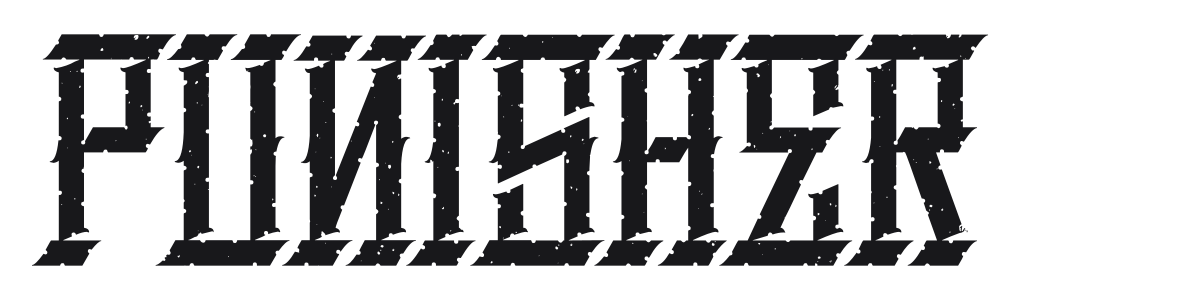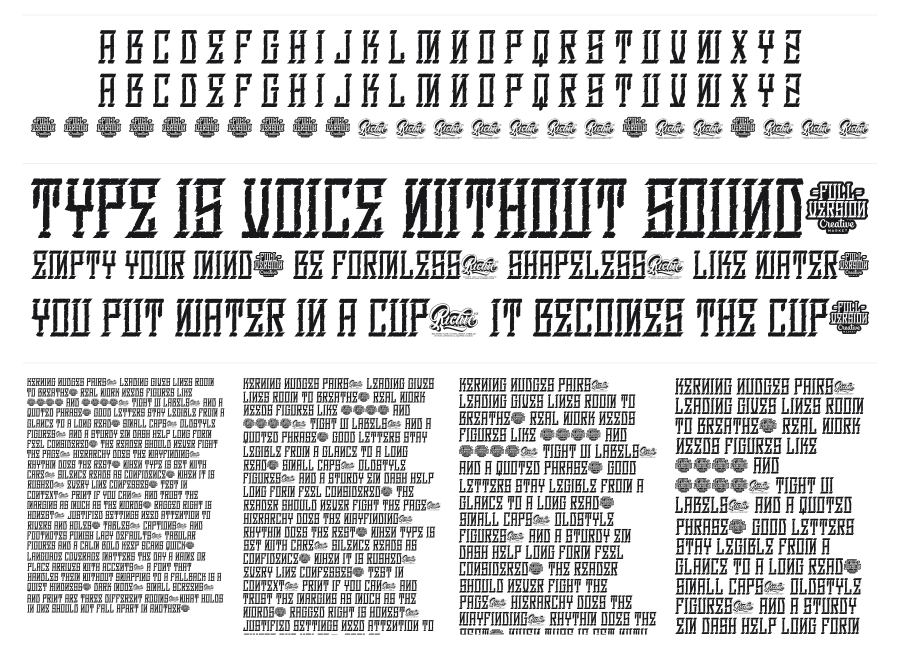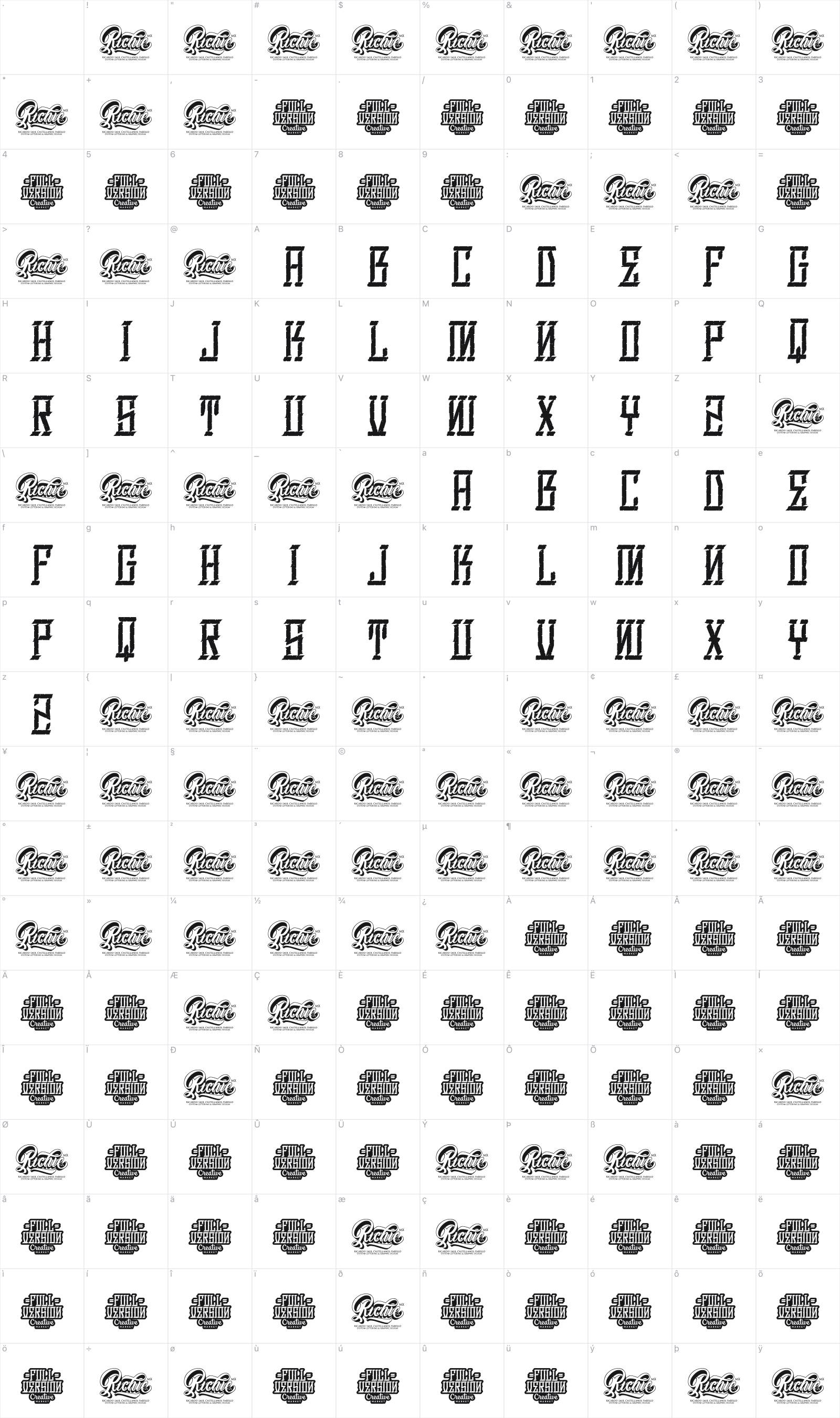
Punisher
Punisher is a bold blackletter gothic display font with heavy distressing baked into every stroke. The angular, condensed construction draws on medieval lettering traditions filtered through tattoo culture and heavy metal aesthetics. It commands attention at large sizes and carries a raw, weathered intensity that clean fonts simply cannot fake.